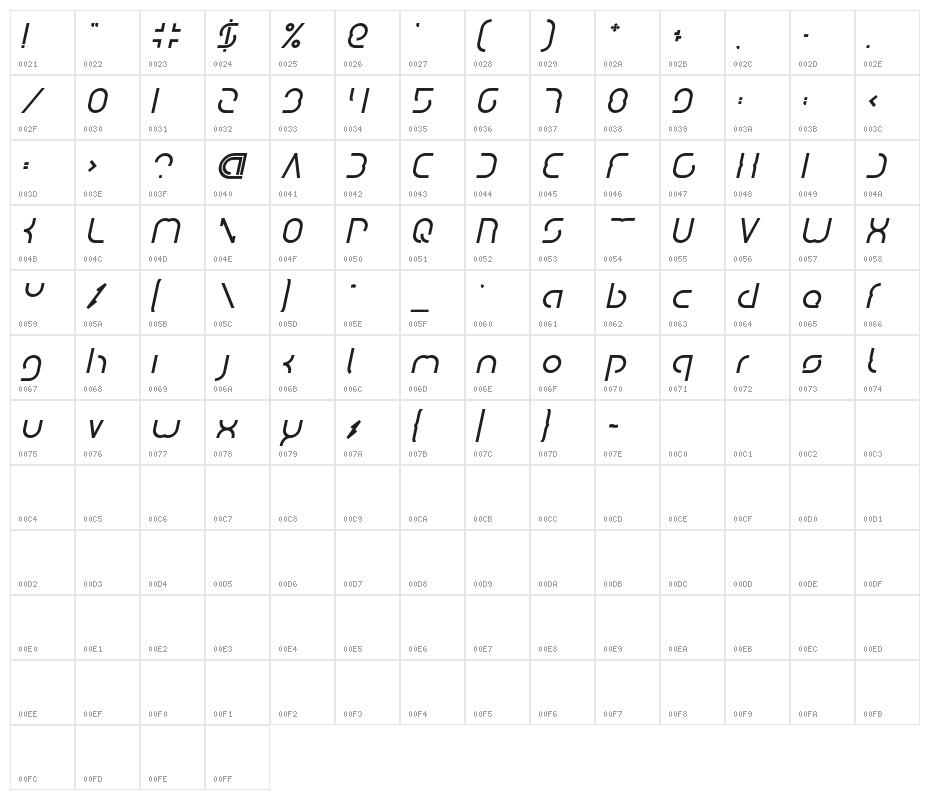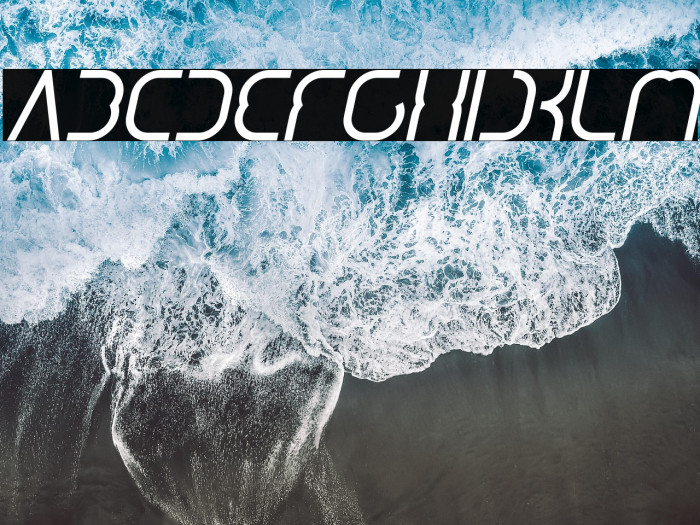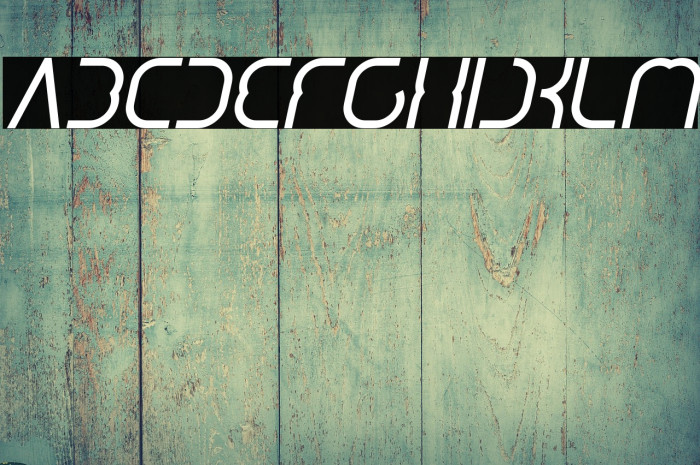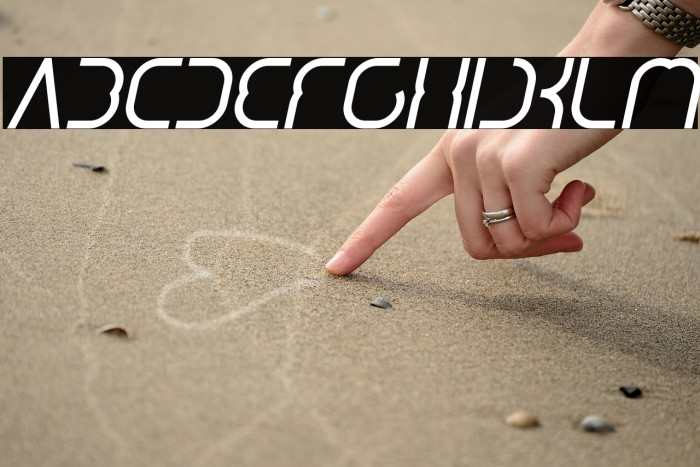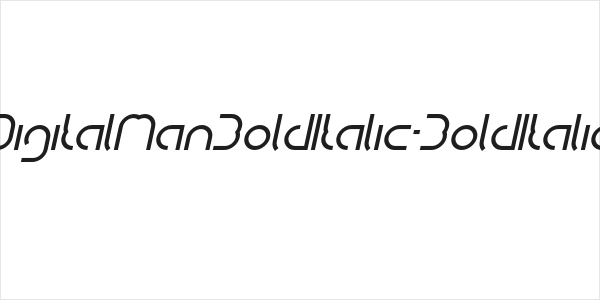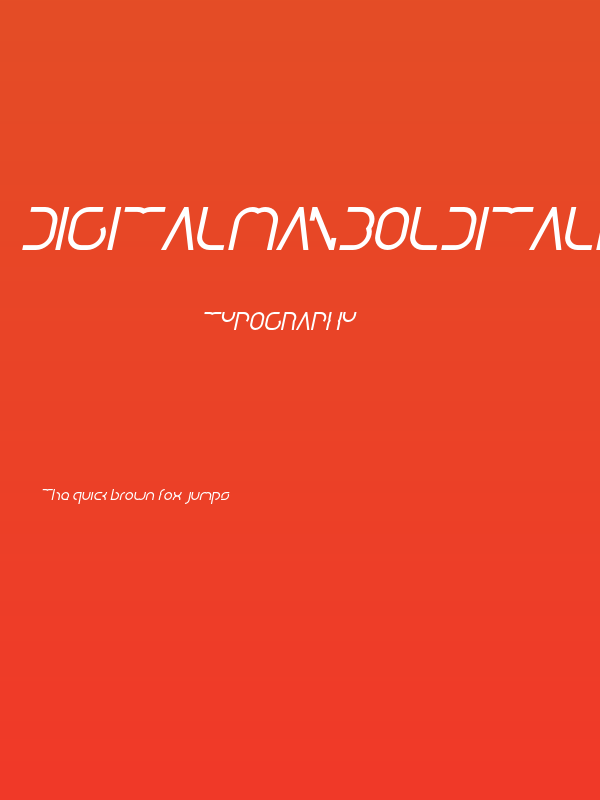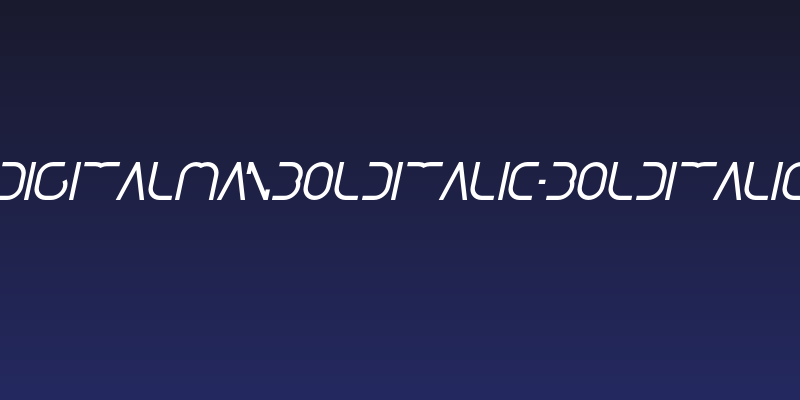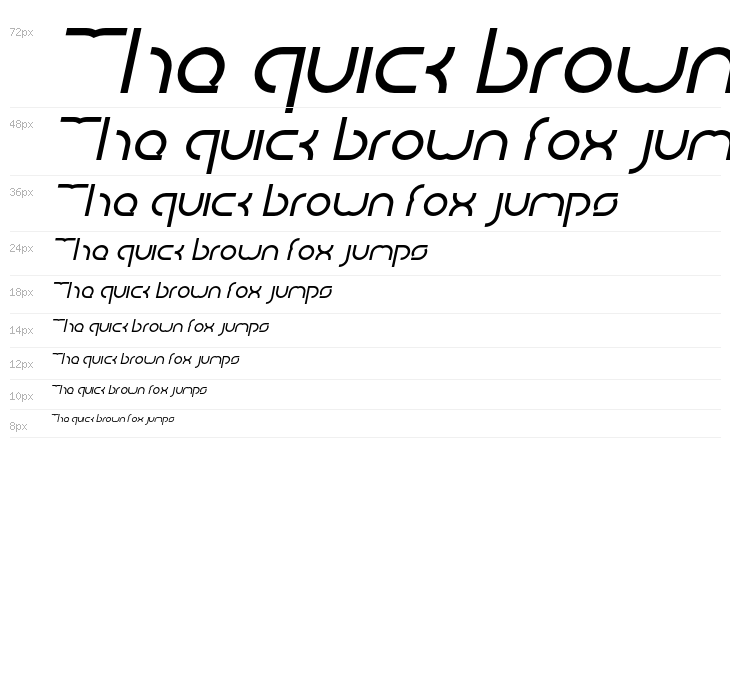
DigitalManBoldItalic-BoldItalic Font
DigitalManBoldItalic-BoldItalic Description
This font features a futuristic and dynamic design, characterized by its bold and italicized style. The letters are sleek and angular, with a distinct forward slant that conveys motion and modernity. The strokes are consistent in thickness, providing a uniform appearance across all characters. The design incorporates sharp edges and smooth curves, creating a balance between rigidity and fluidity. The numerals and special characters maintain the same stylistic elements, ensuring coherence throughout the font. This typeface is ideal for projects that require a contemporary and energetic look.